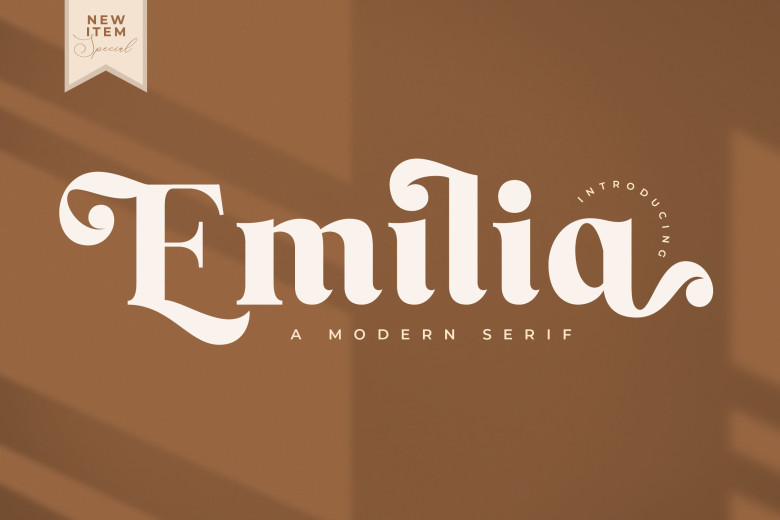
Emilia Font
Emilia Font, created by Storytype, This modern and elegant serif font has its own personality. Unlike any others at all of its ilk -it’s but on thing: a mixture of modern renaissance, it’s classic but modernly striking. Furthermore, a modern take on the interpretation of numbering within songs won’t sound out too terrible!
Emilia Serif Font